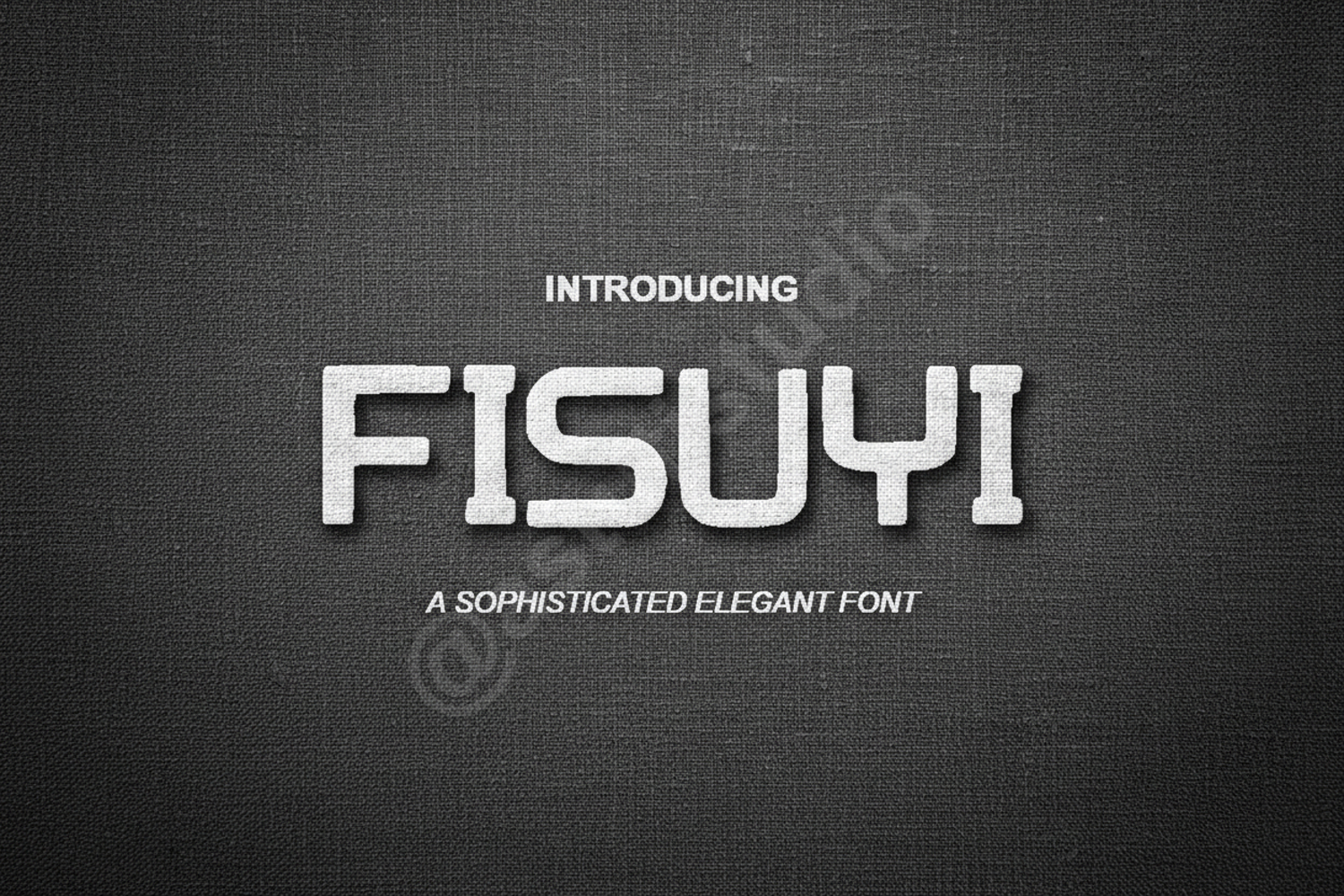
Fisuyi - Modern Elegant Serif Typeface
Fisuyi
Fisuyi is a premium serif typeface crafted for those who demand sophistication and versatility in their design projects. With its clean lines and balanced proportions, this font brings a touch of luxury to any creative endeavor. Whether you are working on a high-end brand identity or a minimalist editorial layout, Fisuyi provides the perfect foundation for professional results.
- Full set of uppercase and lowercase letters
- Comprehensive numerals and punctuation
- Multilingual support for global accessibility
- Branding and Logo Design: Create memorable identities for luxury brands.
- Wedding Stationery: Add an elegant touch to invitations and save-the-dates.
- Editorial Projects: Perfect for magazine headers and stylish layouts.
- Social Media Graphics: Elevate your digital presence with clean typography.
- Product Packaging: Enhance the visual appeal of premium retail goods.